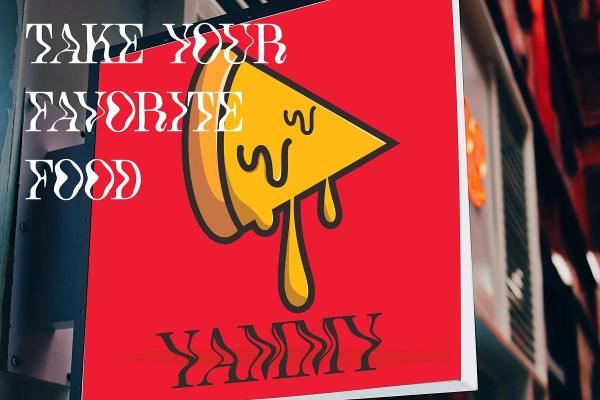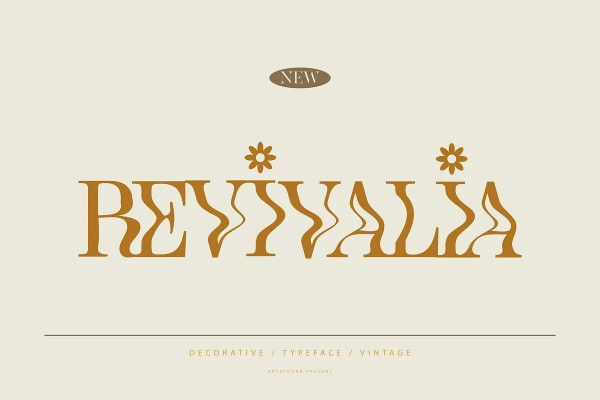
Revivalia Font
Revivalia Font, experience the mesmerizing allure of our hypnotic display font. With its swirling curves and mind-bending letters, this font will transport you to a trippy and trance-like world. Perfect for adding a touch of otherworldly magic to your designs, posters, and creative projects that dare to explore the depths of imagination.